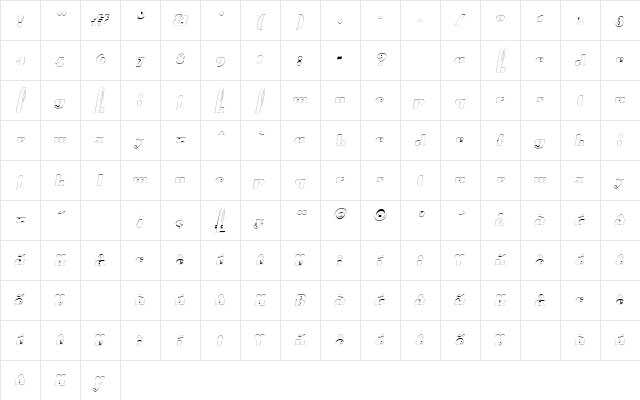
SplittingHaresOutline Oblique
Design Context for SplittingHaresOutline Typeface
SplittingHaresOutline brings ornamental detail and strong personality to headlines and identities, where visual impact matters more than quiet functionality. The slanted form adds forward momentum and visual energy.
Font Pairing: Pair with a clean neutral sans-serif for body copy to let SplittingHaresOutline's character lead without overwhelming the composition.
Pro Tip: Treat SplittingHaresOutline as the centrepiece of your typographic hierarchy. One strong heading set in a decorative face can carry an entire layout.